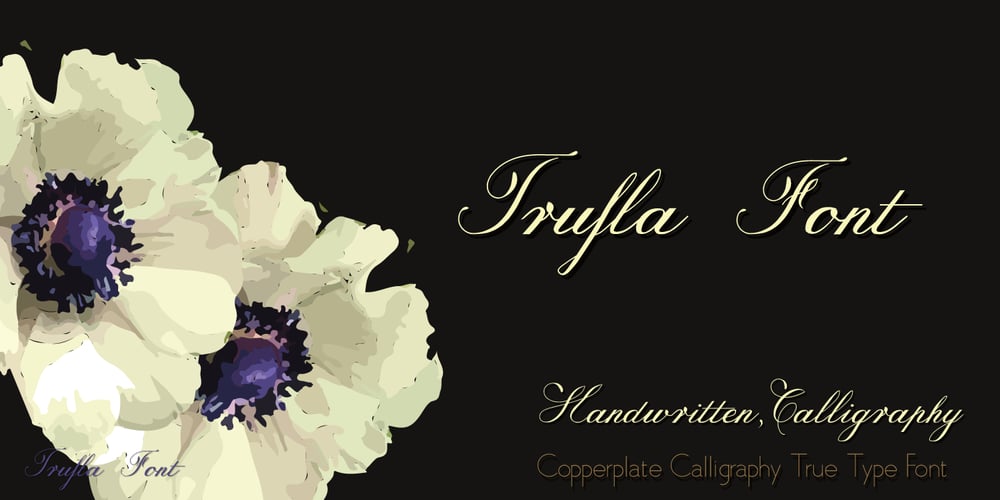
Trufla Font Family was designed by Aga Silva and published by Aga Silva. Trufla contains 1 styles and family package options. Create fantastic headers for your invitations, business cards – or design stand out labels or gift tags. This font has been handmade and executed with a dip pen in Copperplate style calligraphy.